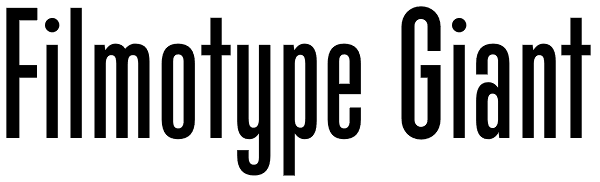
Filmotype Giant
Initially designed in the early-to-mid 1950s, Filmotype Giant is part of a larger group of condensed sans serifs offered by Filmotype at the demand of its customers based on their versatility, legibility, and timeless aesthetic. Remastered and...